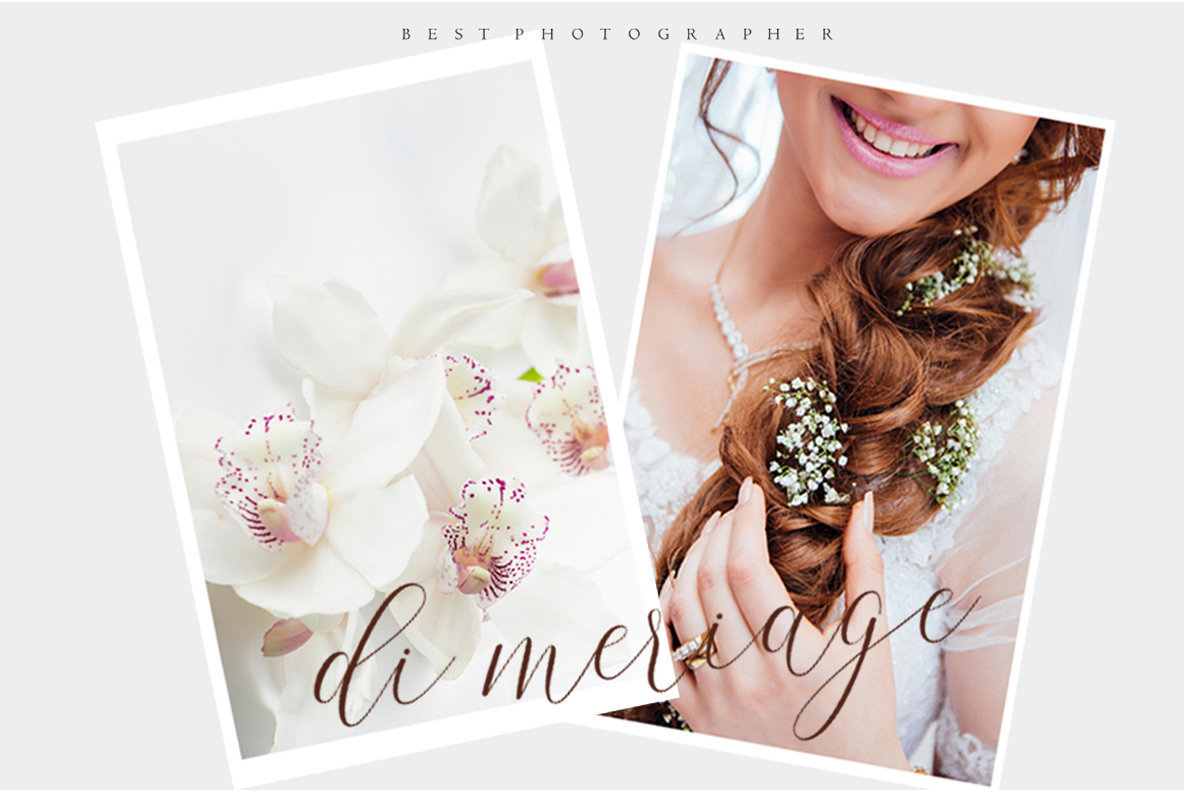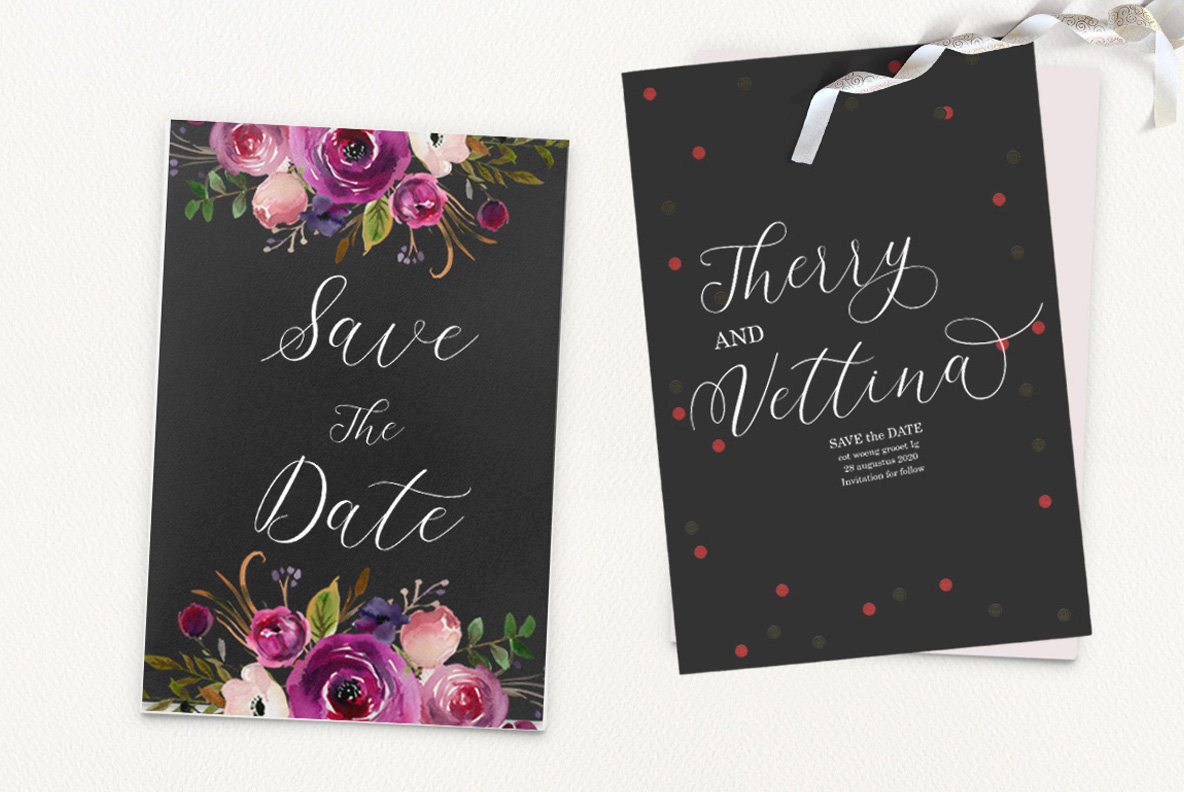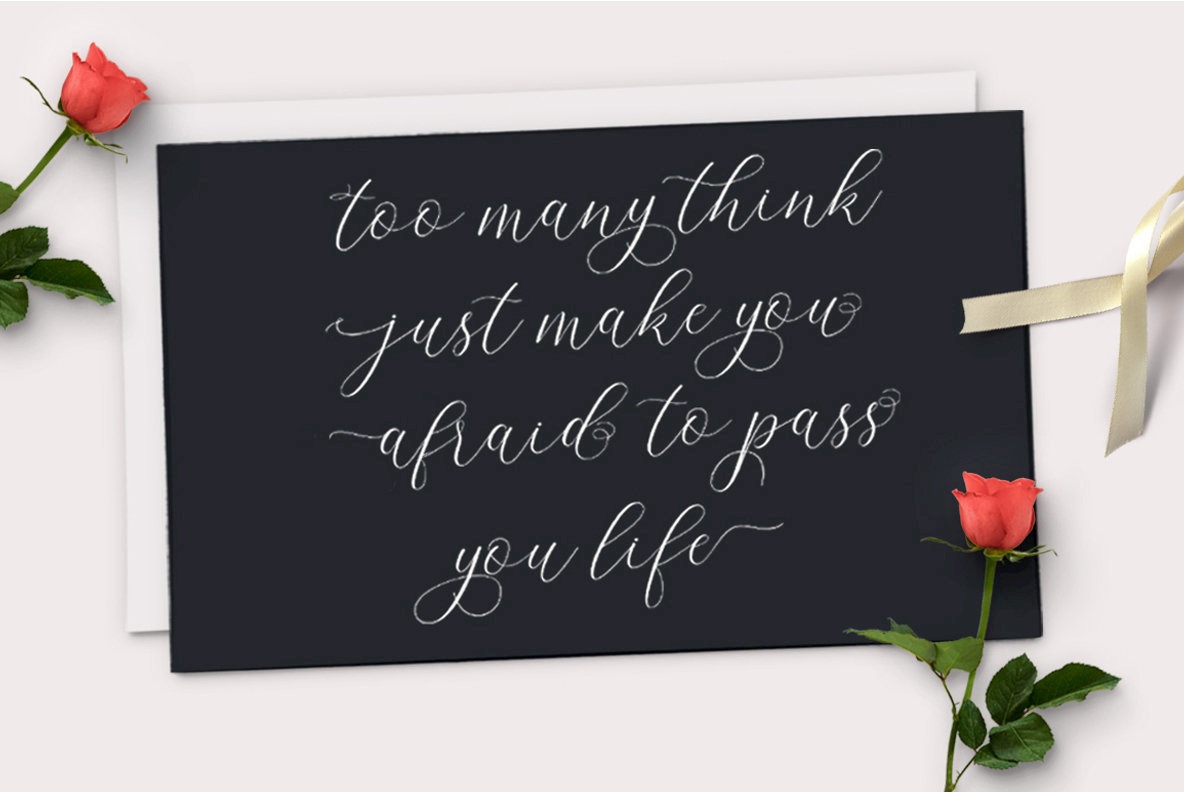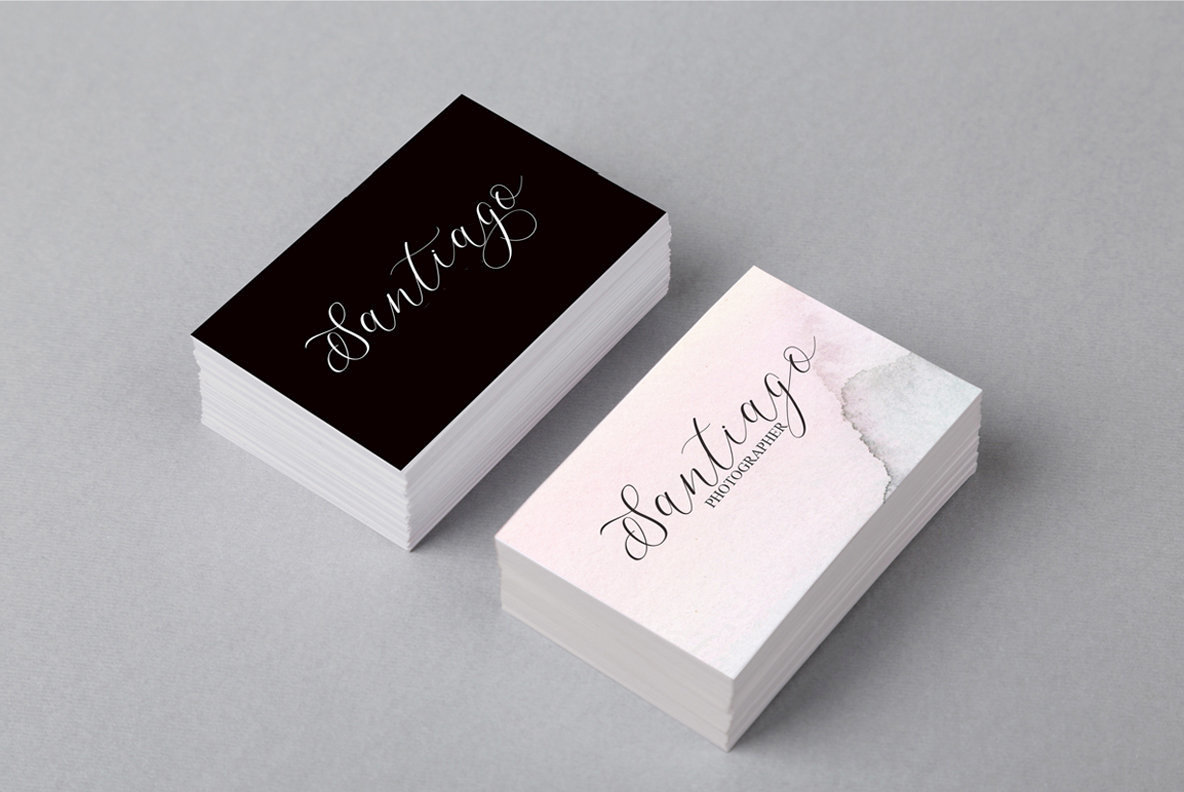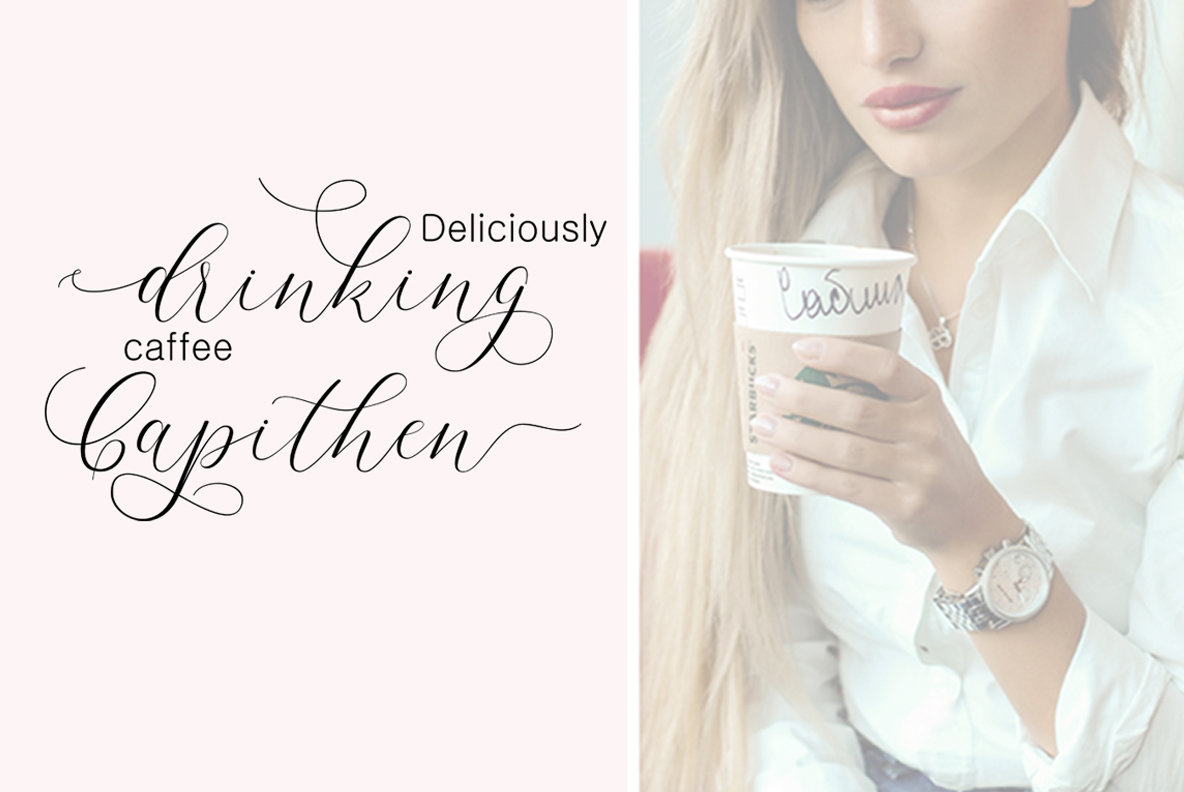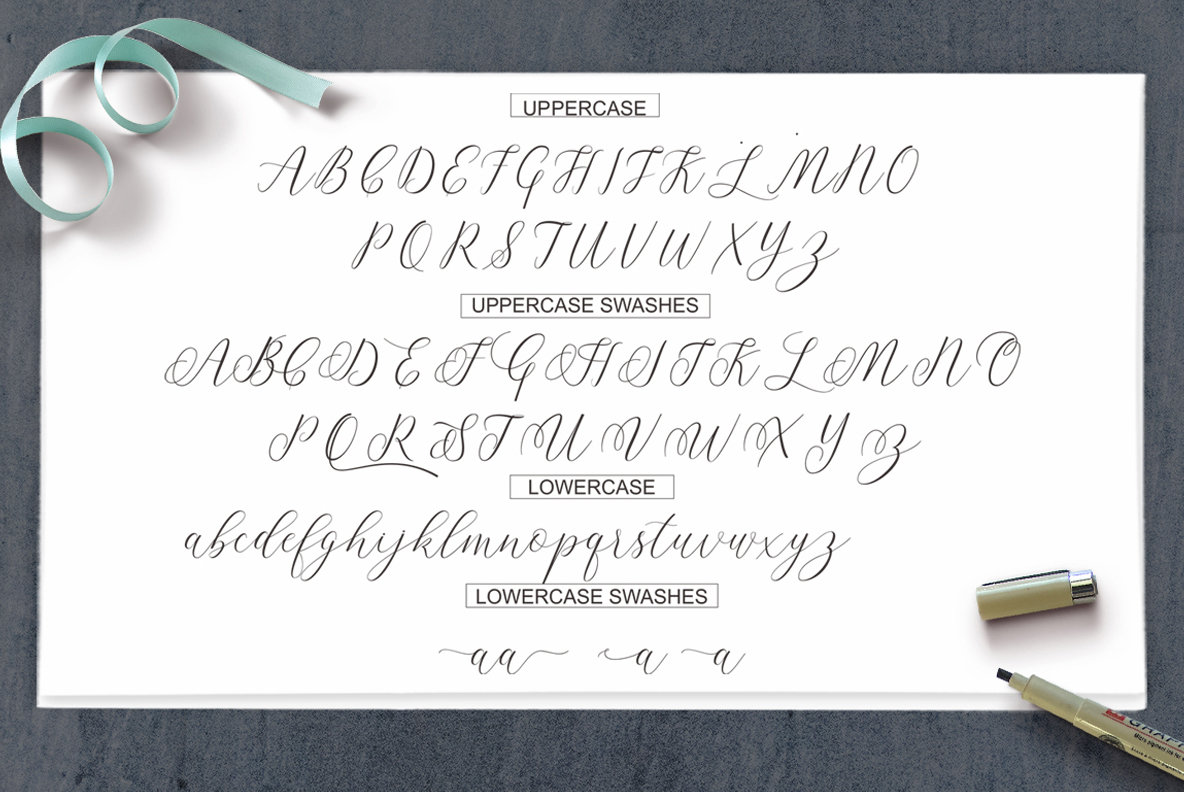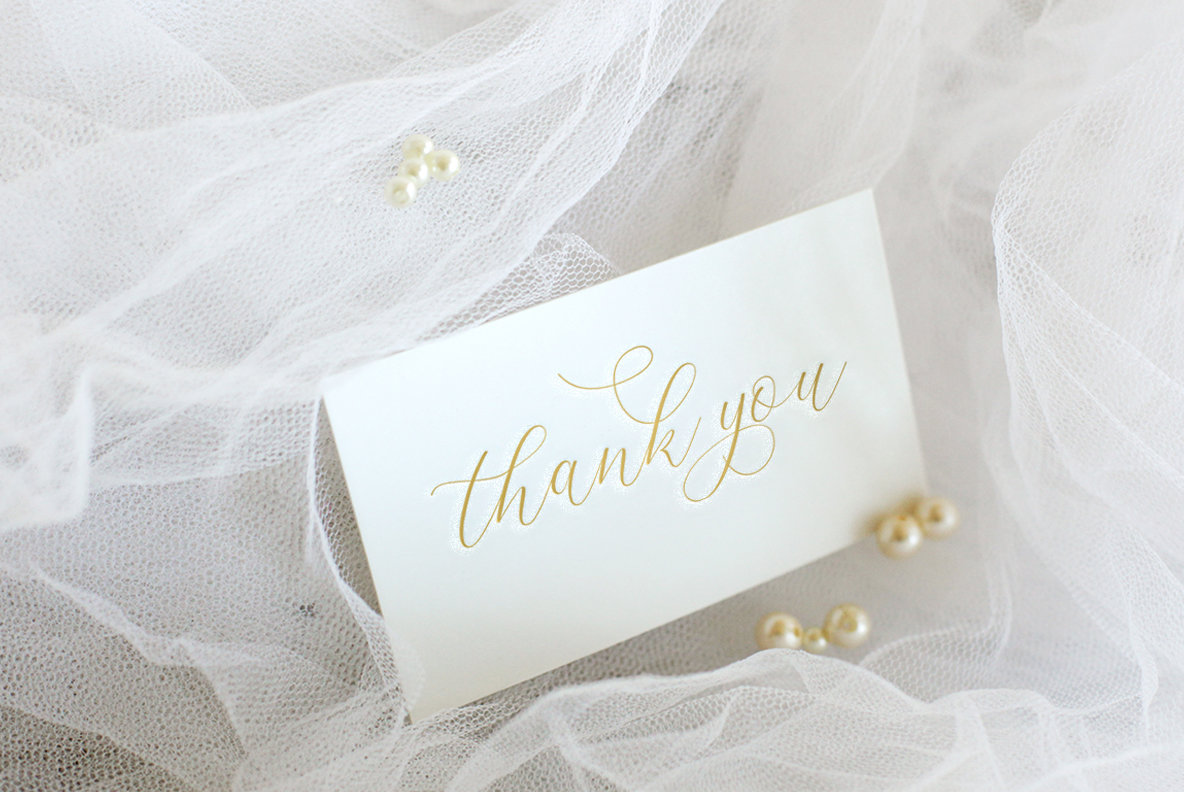
Lindage Font
Lindage Script
Lindage Script brings a refined elegance to your design projects. Perfectly suited for weddings, logos, branding, and more, its classic touch adds sophistication to any medium it graces. Features: To unlock stylistic alternates, use software that supports OpenType features such as Adobe Illustrator, InDesign, or CorelDraw. For additional characters, utilities like Character Map, Nexus Font, or Font Book may also be used.Lindage Script: Elegant Handwritten Typeface with Classic Roots